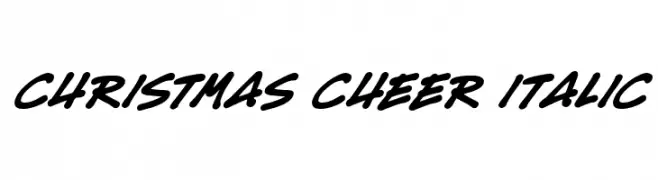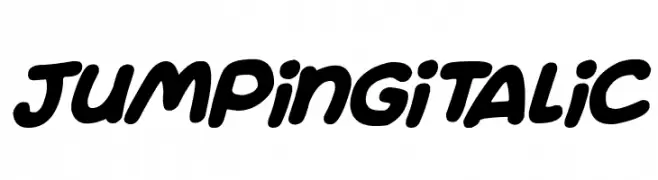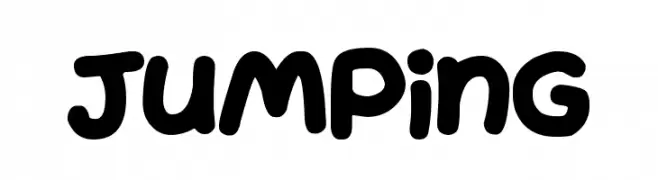
A playful, bold font with rounded, bubbly characters ideal for fun projects.
A bold, italicized font with rounded, playful characters.
A playful, bold font with rounded, bubbly characters.
A bold, rounded, and slightly italic font with a playful and dynamic style.
A bold, playful font with rounded, chubby characters and a whimsical style.
A playful, bold font with rounded, bubbly characters.
A bold, italicized script font with a festive and playful style.
A playful, bold handwritten font with a quirky, festive vibe.